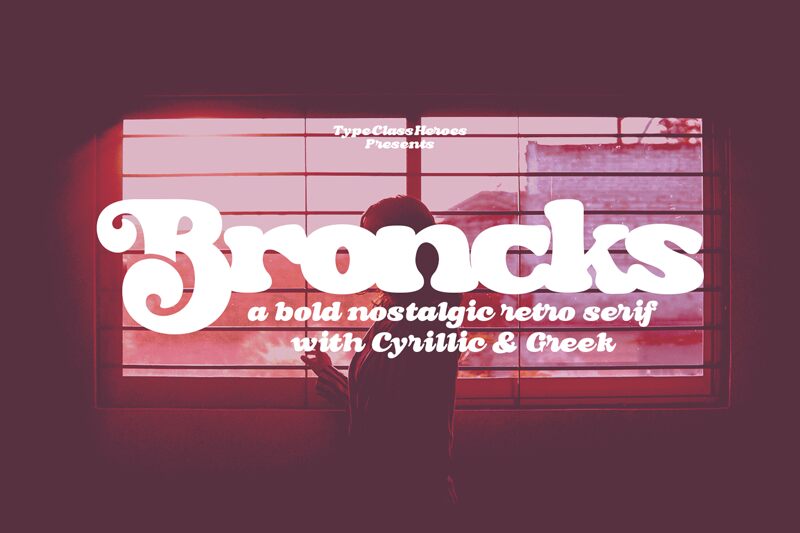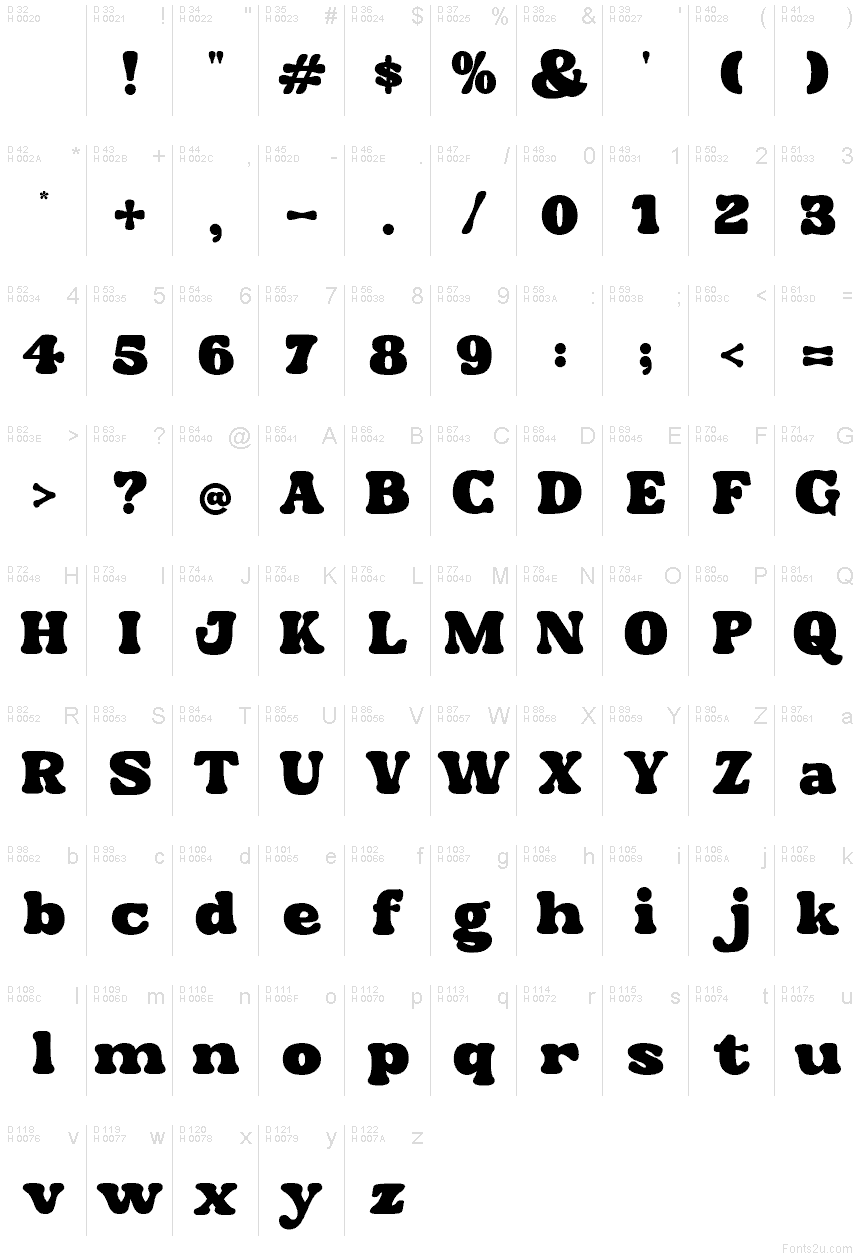
Broncks font by TypeClassHeroes is a free retro display typeface. Its oversized, pillowy curves and inky, swollen strokes channel 70s bubble lettering without slipping into kitsch. Letters feel weighty yet soft, with a bouncy rhythm that packs a lot of color on the line—great when you want bold impact that still reads friendly and tactile.
Using Broncks, headlines snap on posters, food-and-beverage packaging, event flyers, badges, vintage-style logos, social graphics, and merch. It loves big sizes and tight spacing; nudge tracking slightly to tune the groove. Pair this free font with a clean grotesque or geometric sans for body copy to let Broncks do the talking while the supporting text stays crisp.